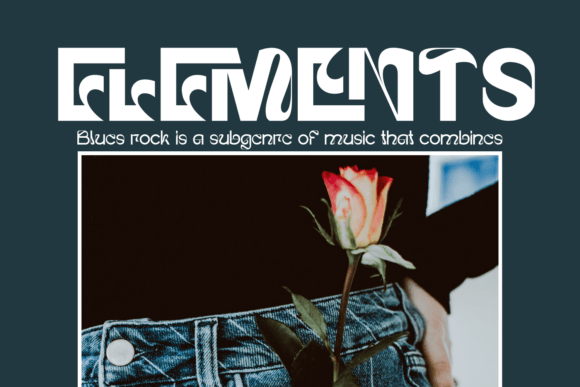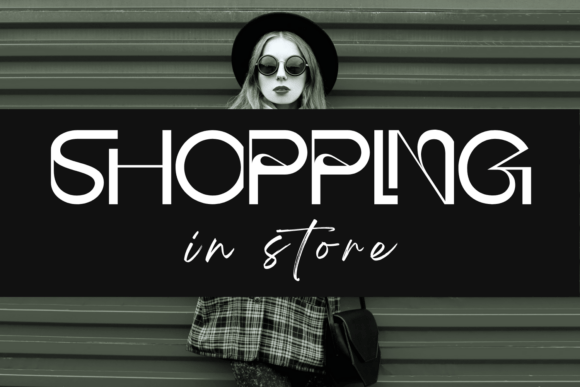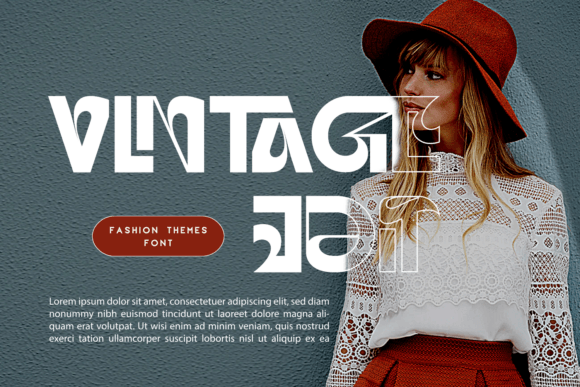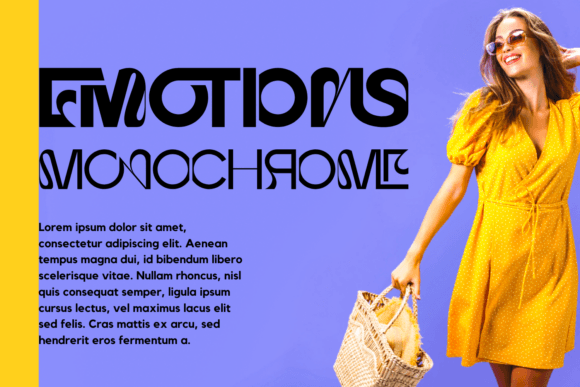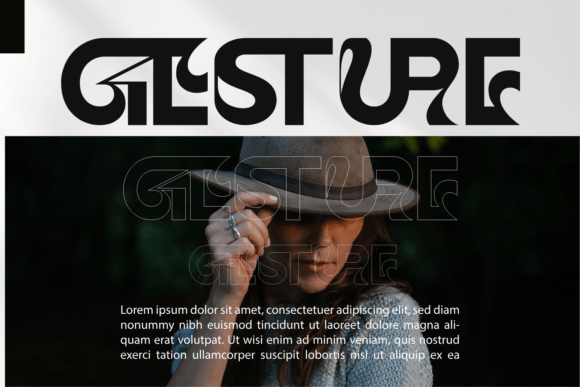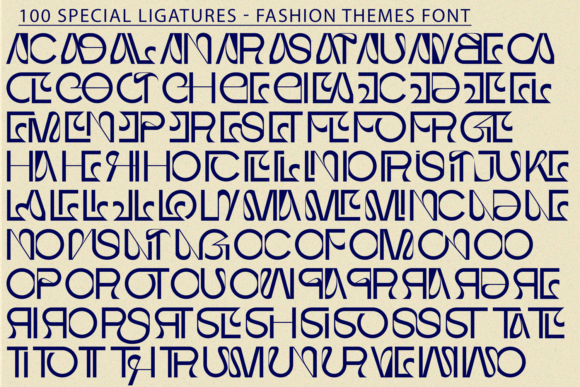
Introduction to Fashion Themes Font
Fashion Themes is a modern sans font insprire by modern future theme with geometric details and deep in industrial design principles.
The clean, sharp letterforms, combined with open angles—particularly at the ends of certain characters—create a modern, professional look that stands out in any setting .
Key Features of Fashion Themes Font
Why Choose Fashion Themes Font?